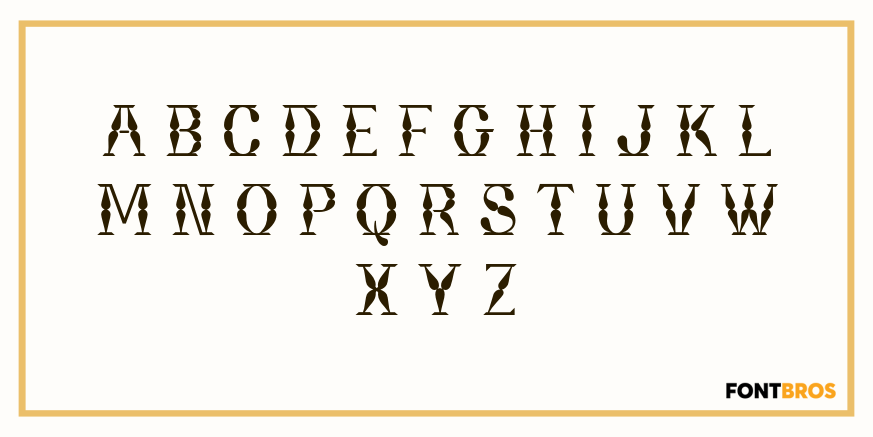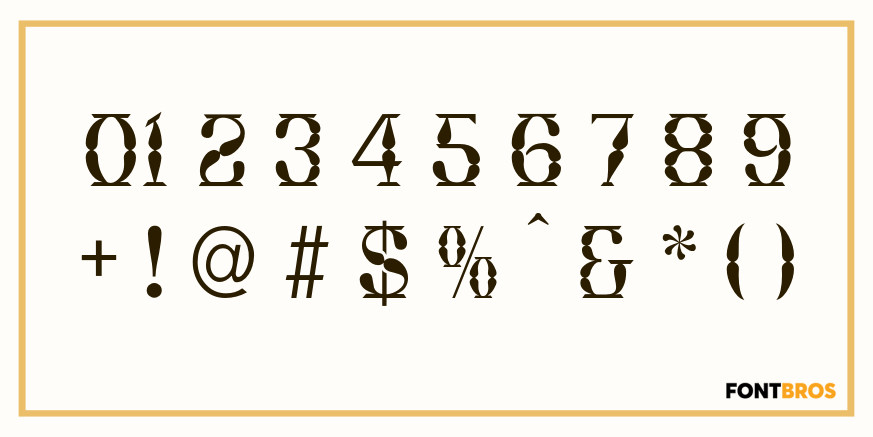
Bordeaux
This font was inspired by the lettering on a shop sign along a very classy shopping street in Bordeaux, France.
There were similar styles among mid-nineteenth century types.